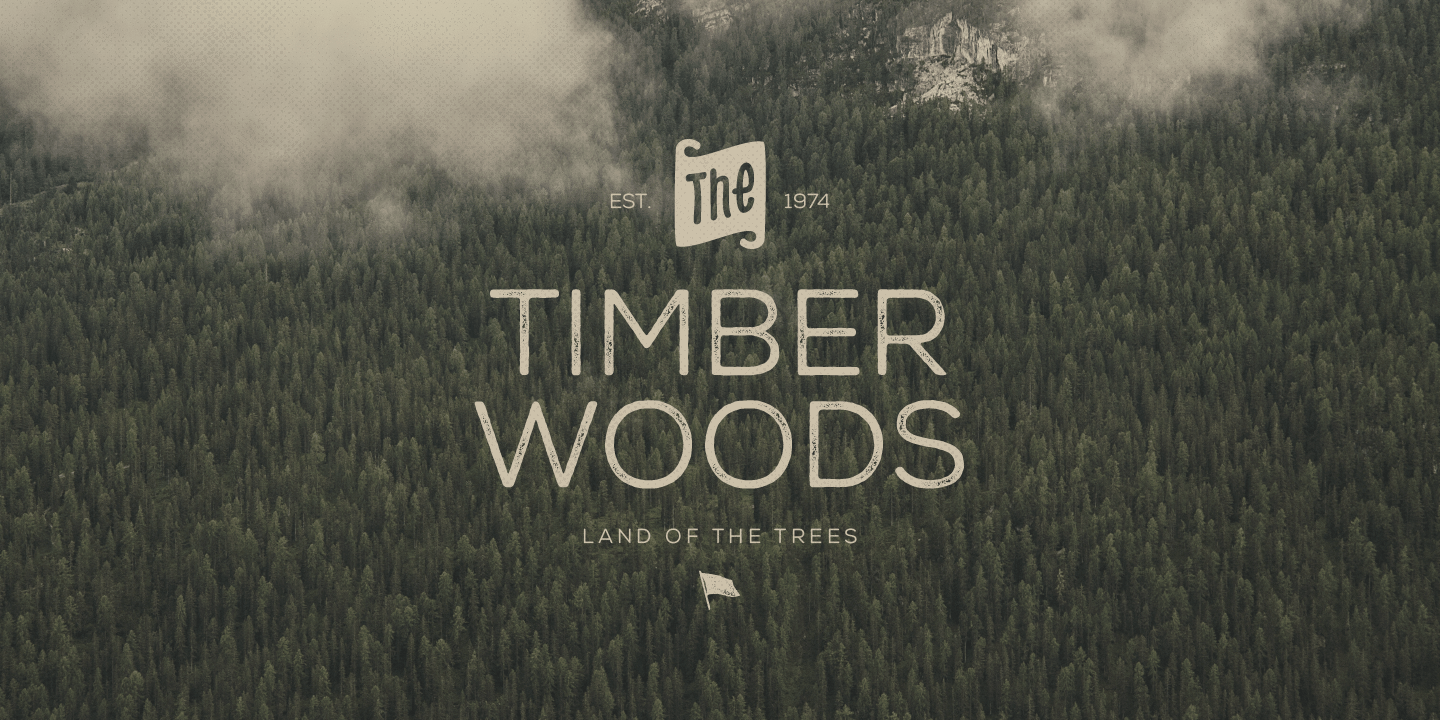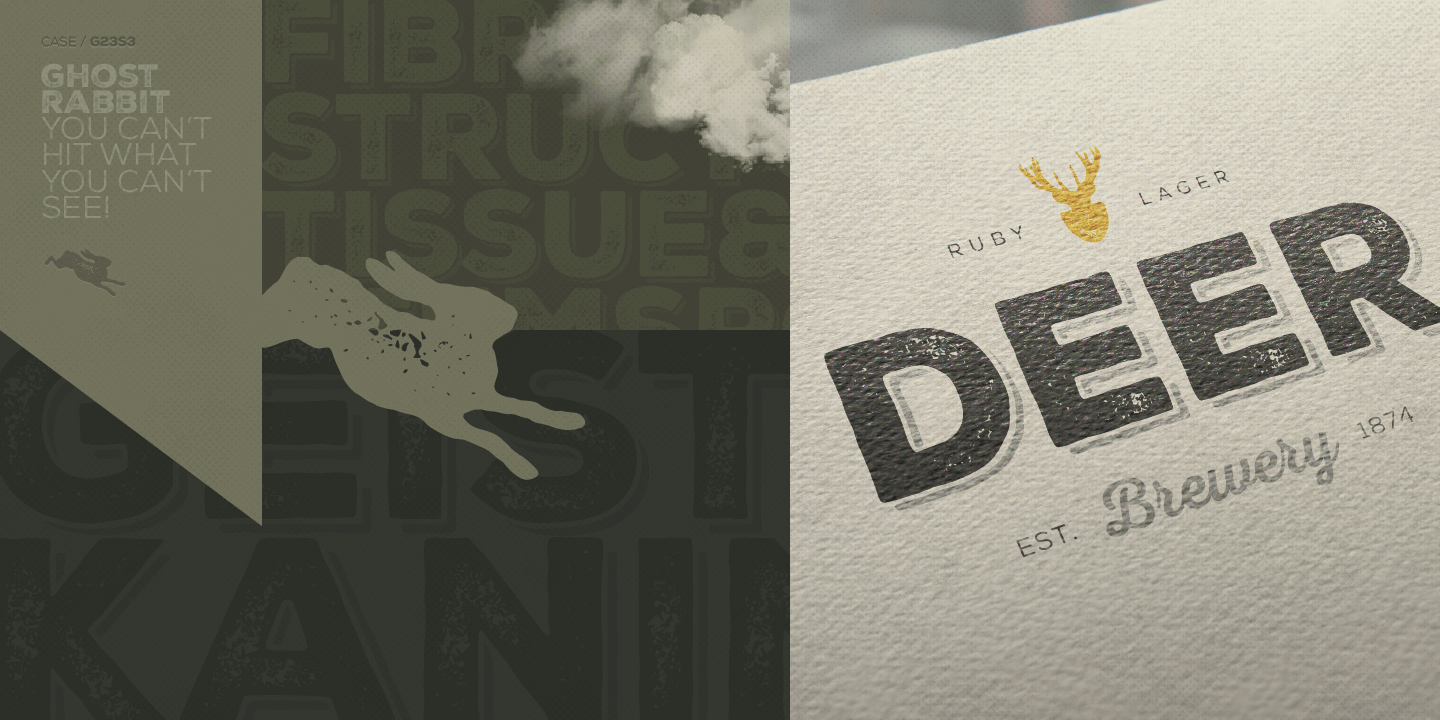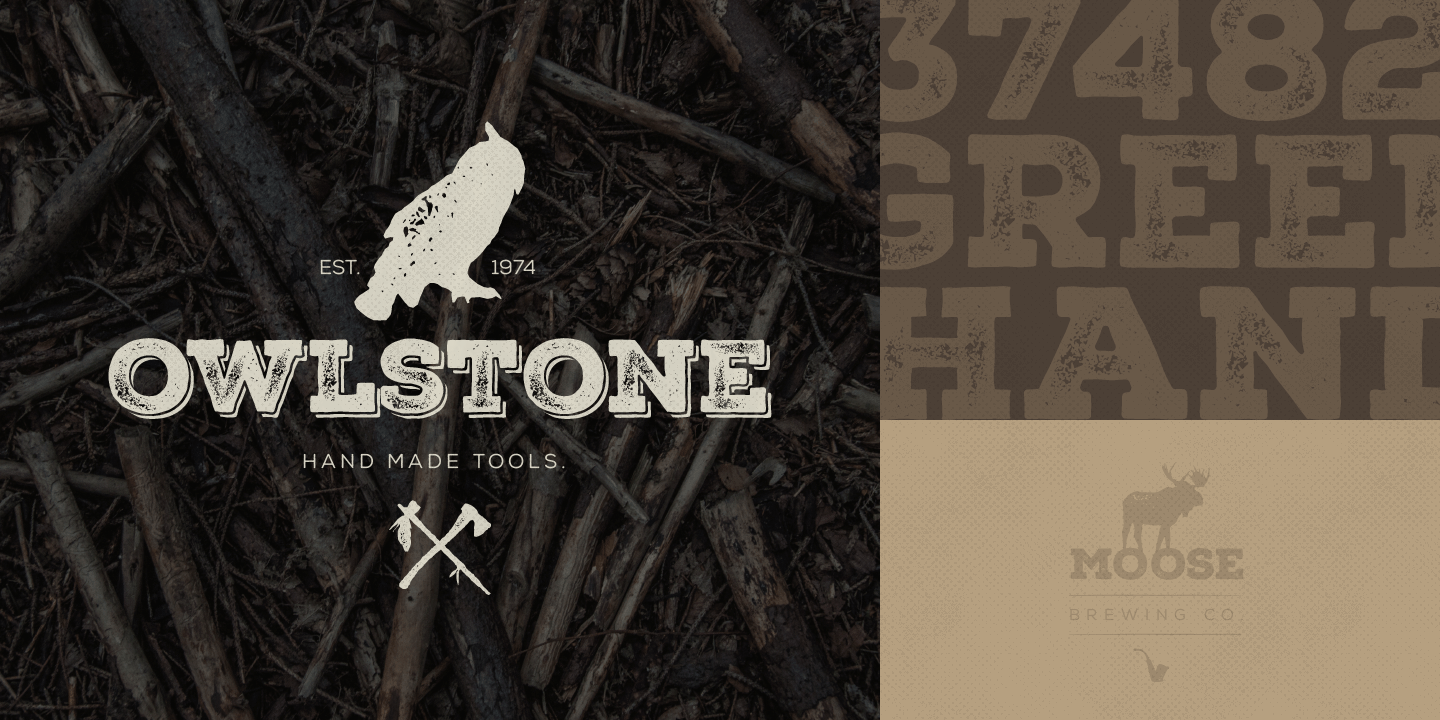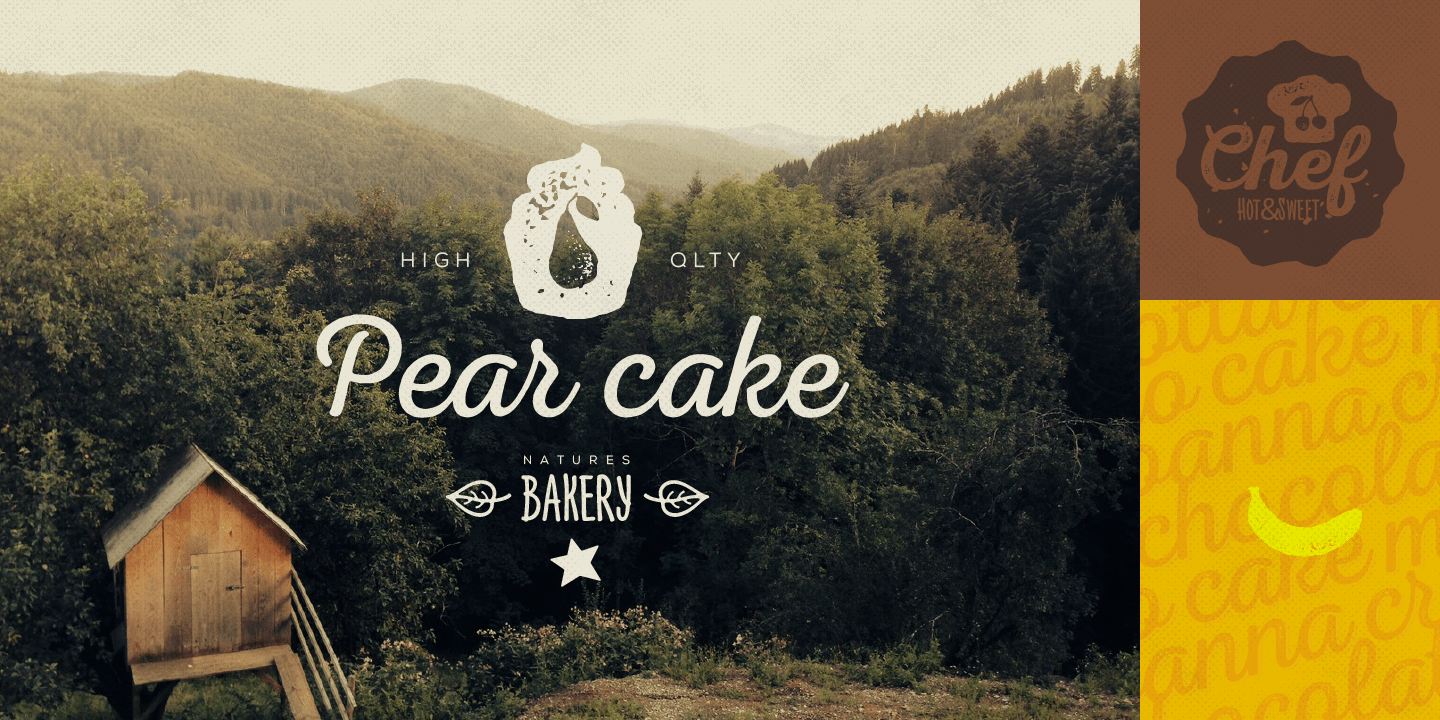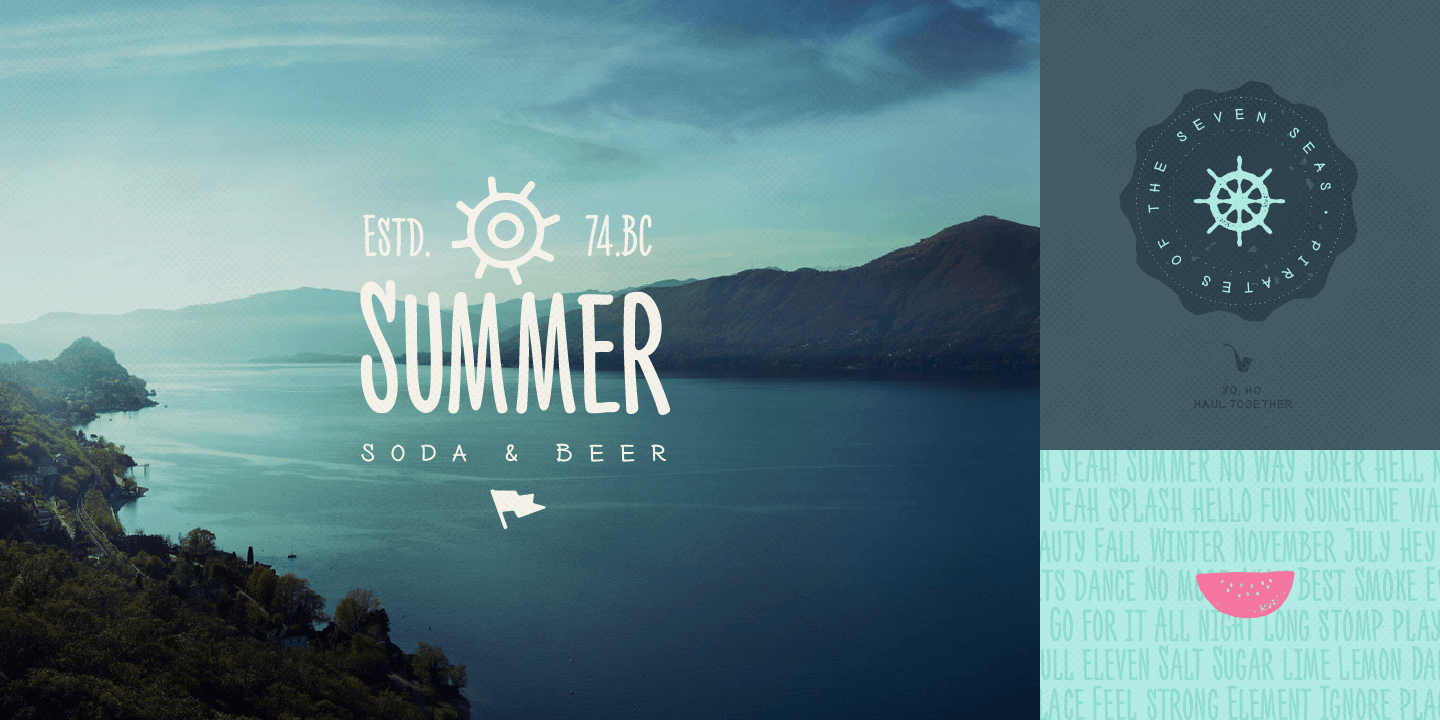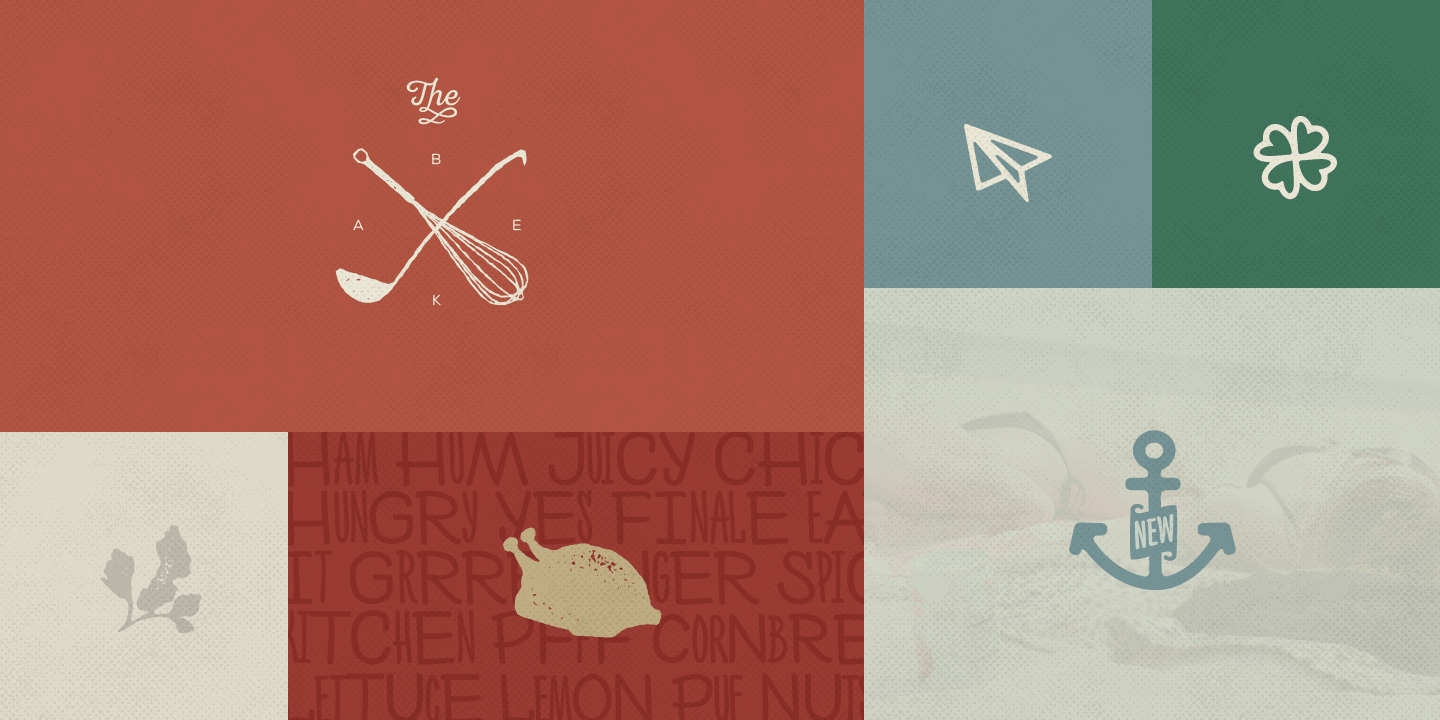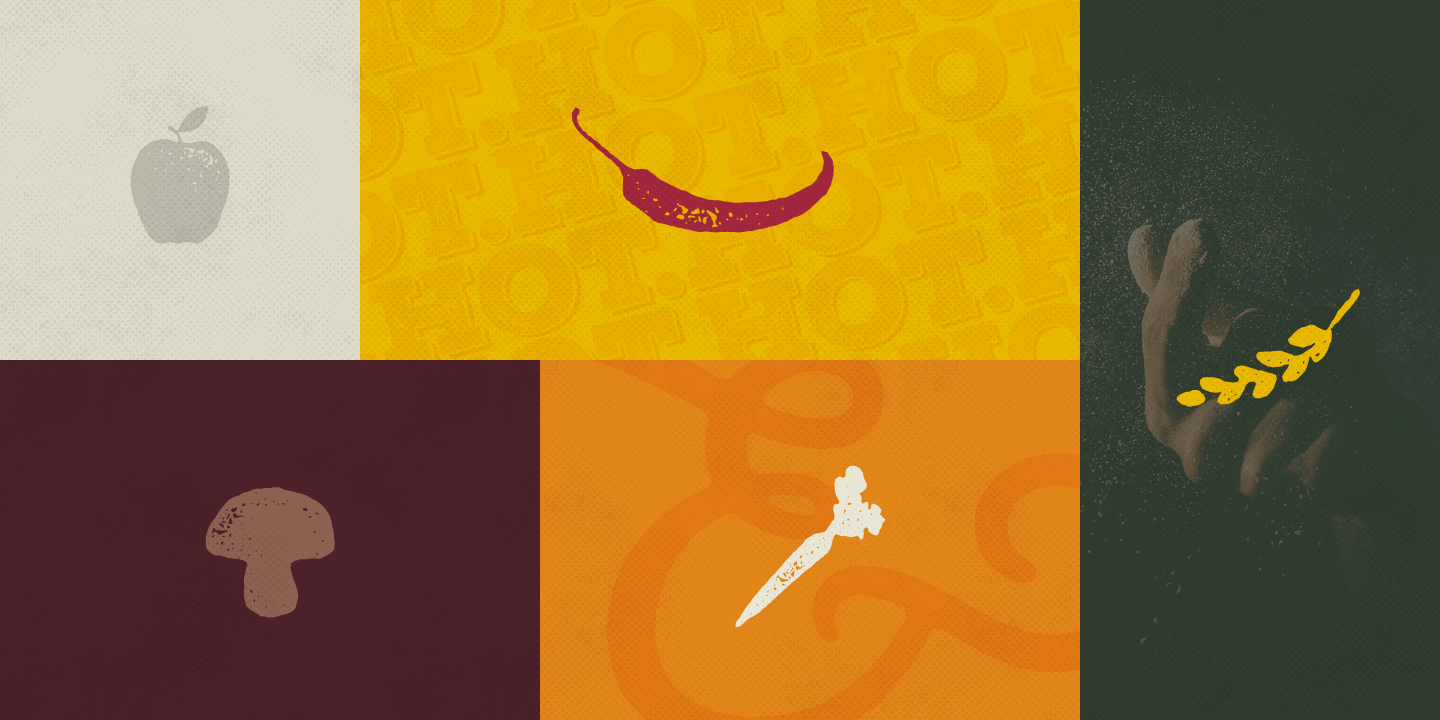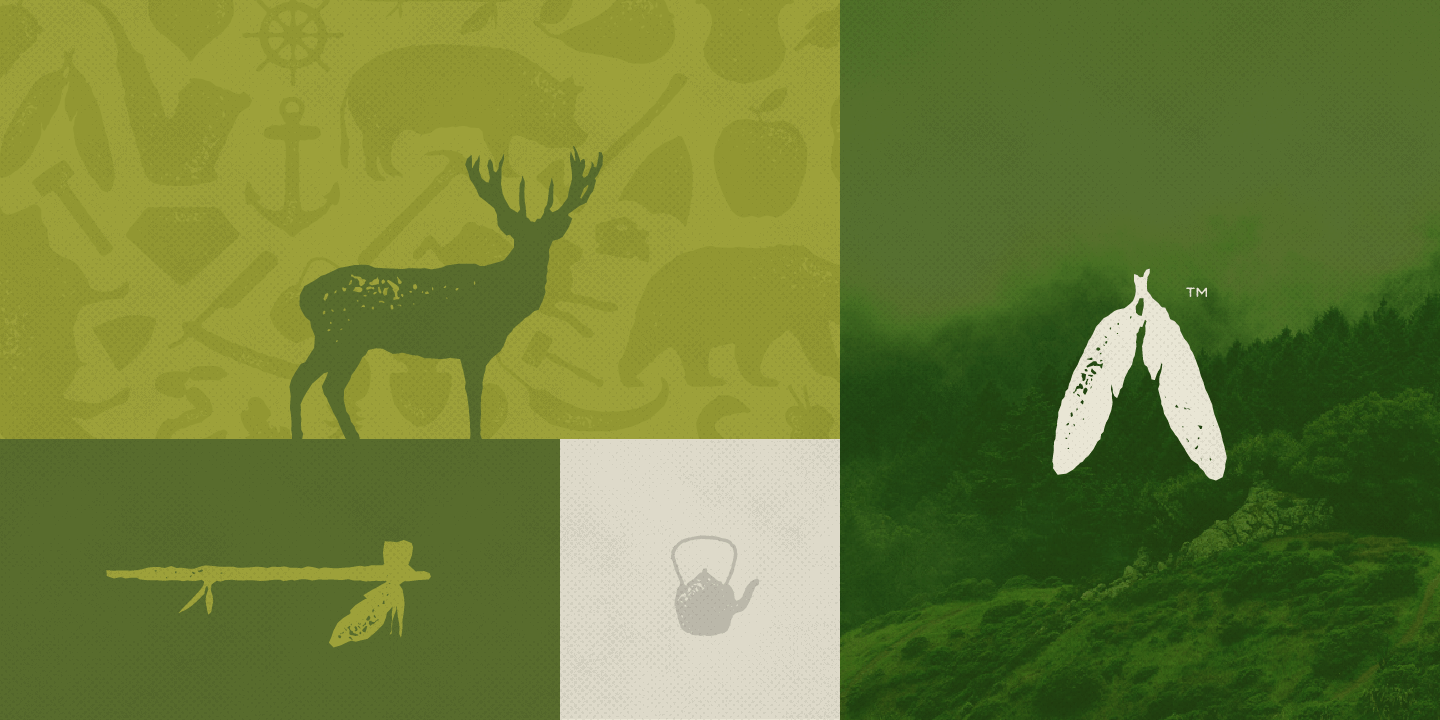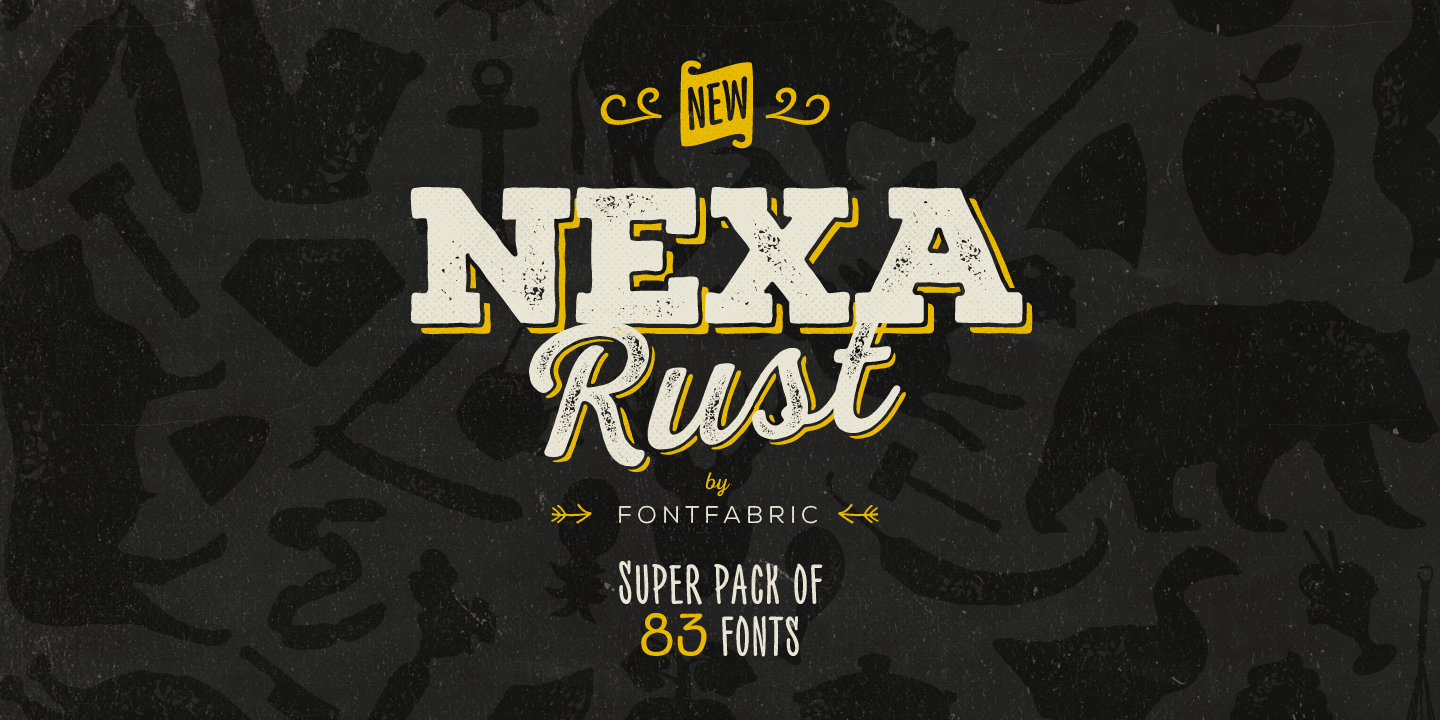
Nexa Rust
About Nexa Rust
Nexa Rust from Fontfabric Type Foundry is a multifaceted font system consisting of font sub-families Sans, Slab, Script, Handmade and Extras. Each of these sub-families contains a number of font weights which have a characteristic warm, rough look and…